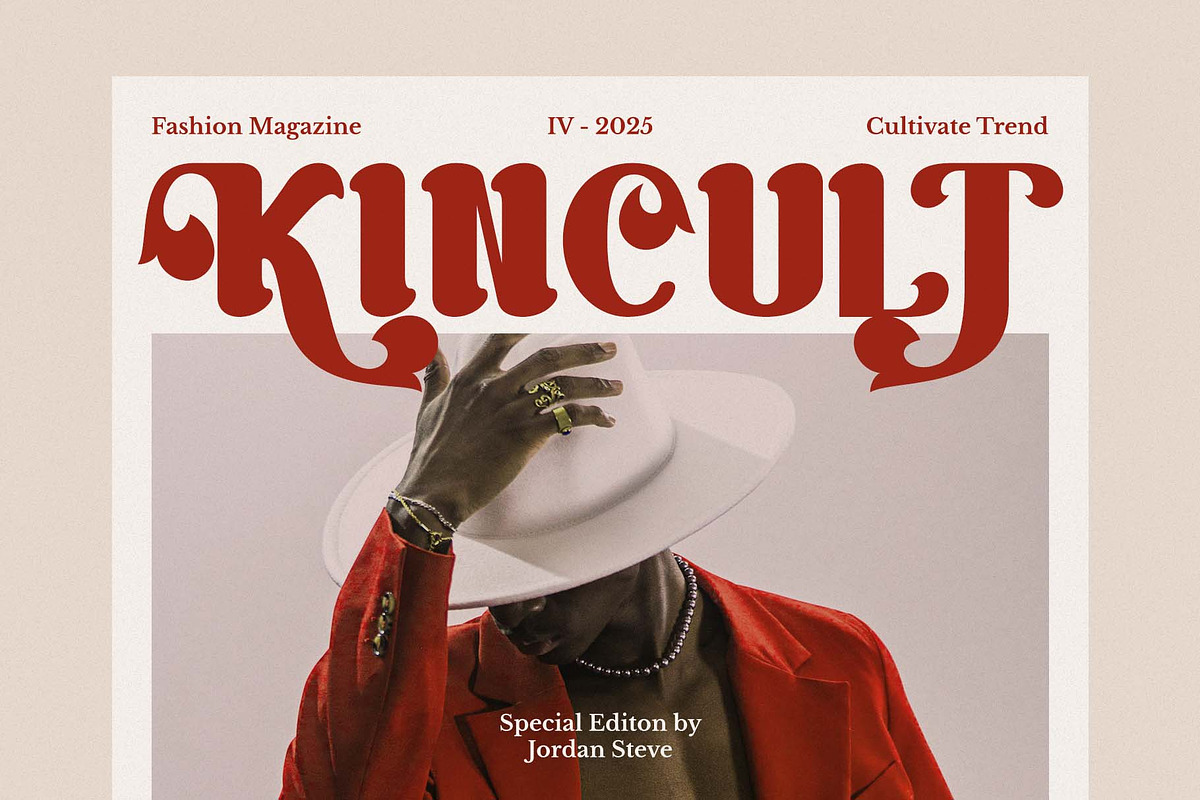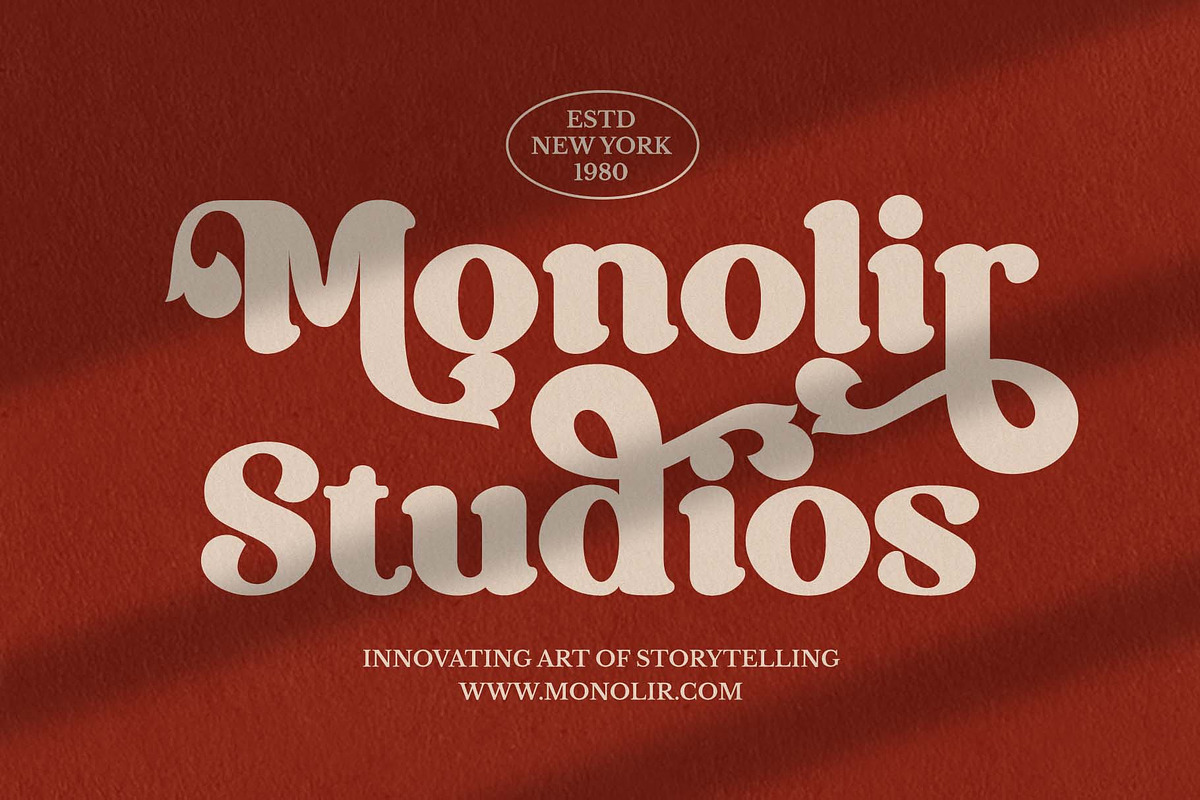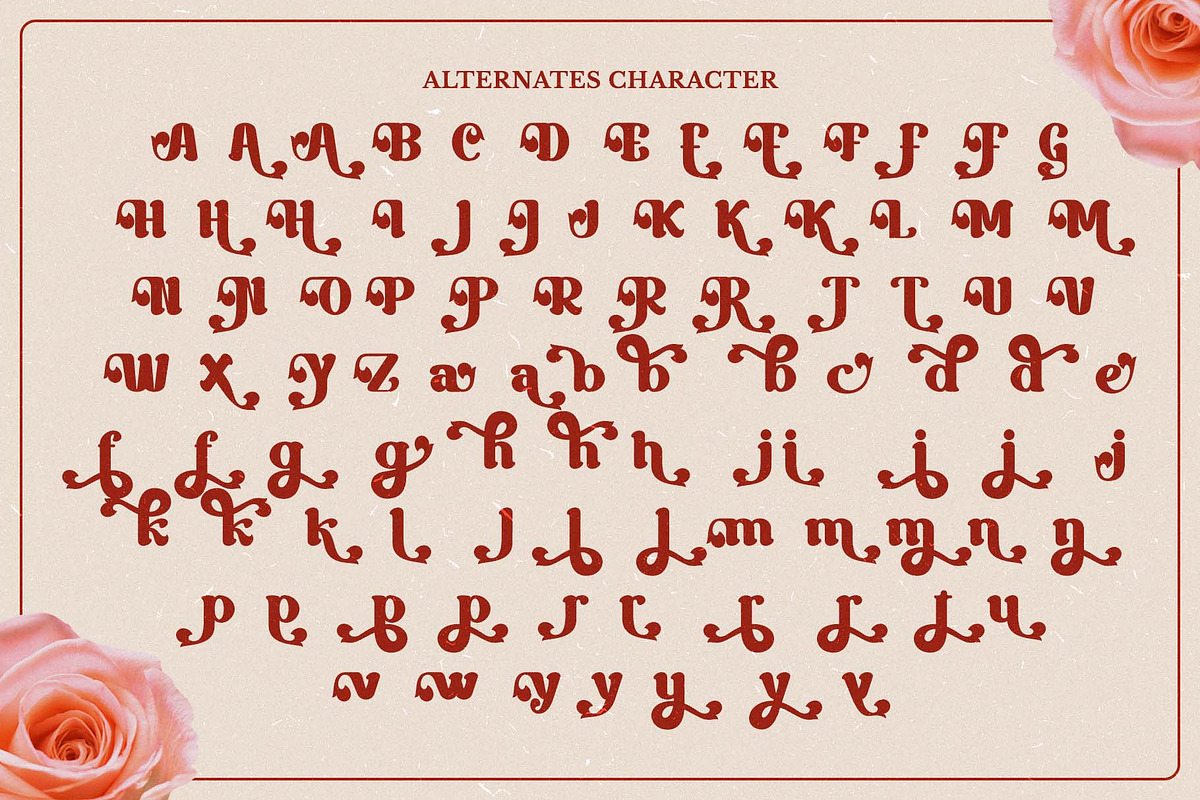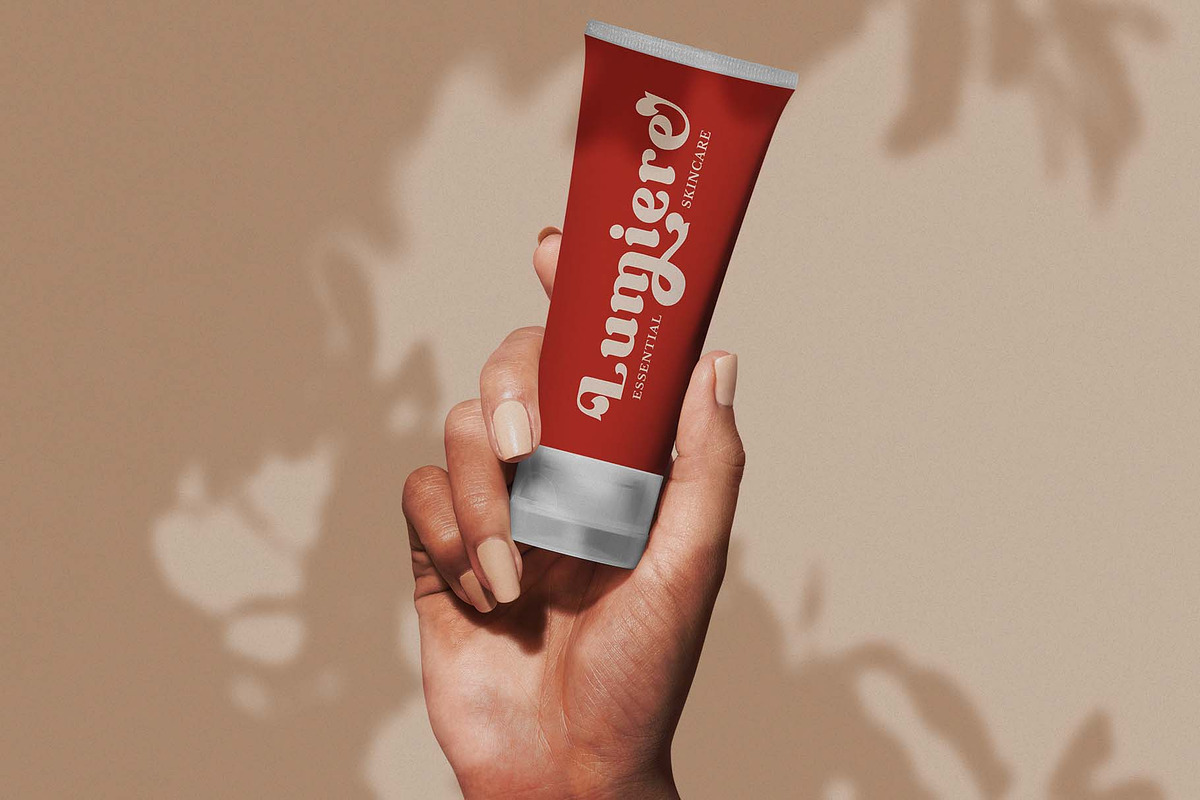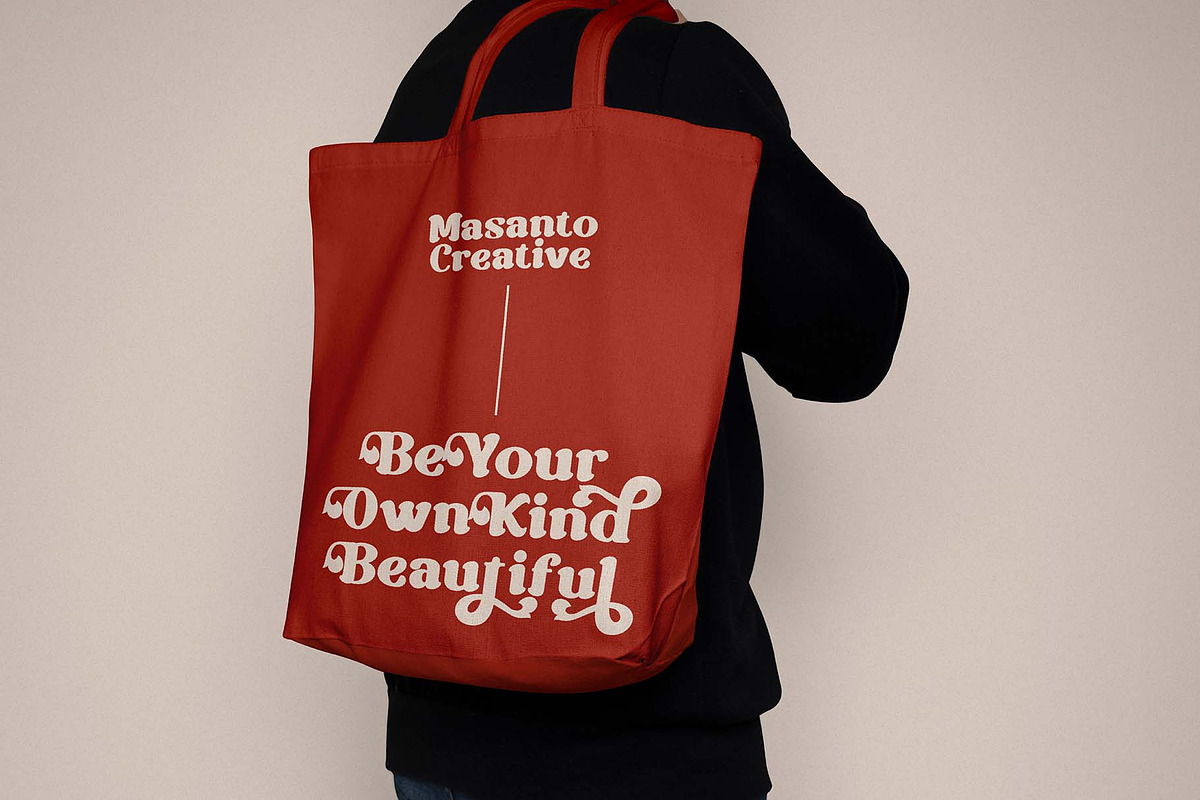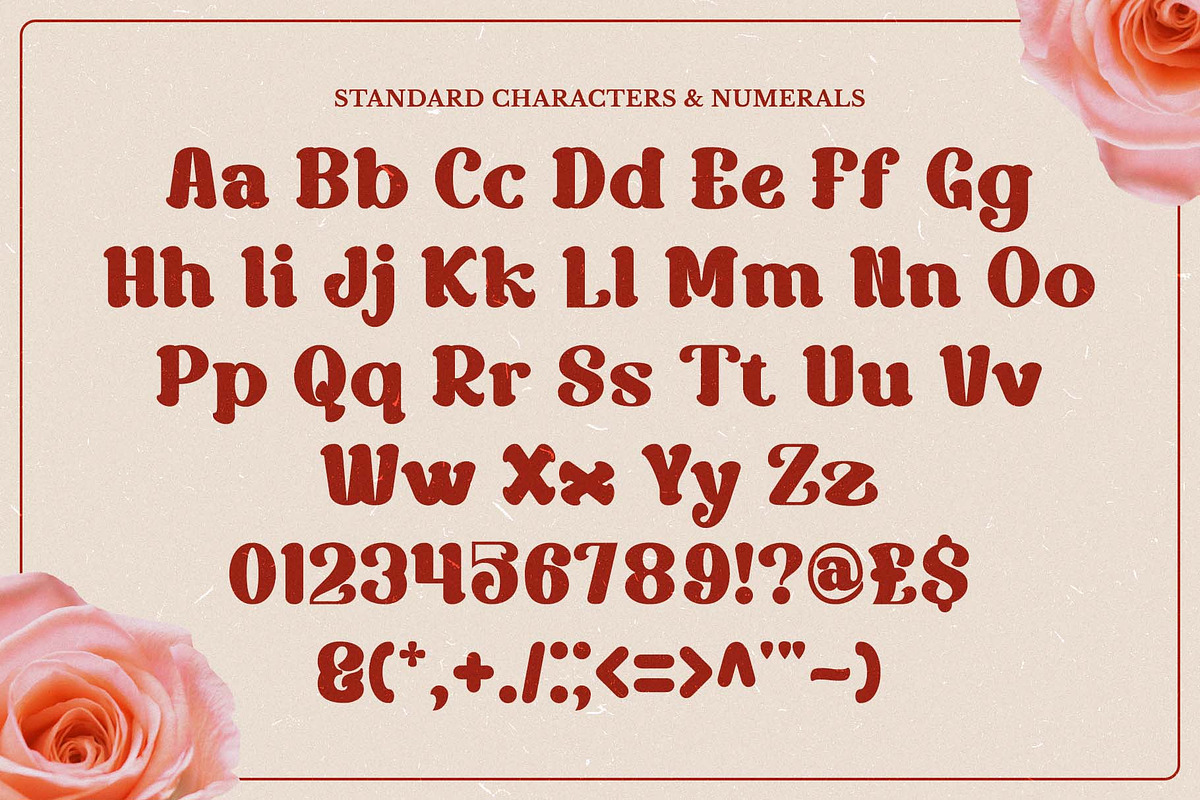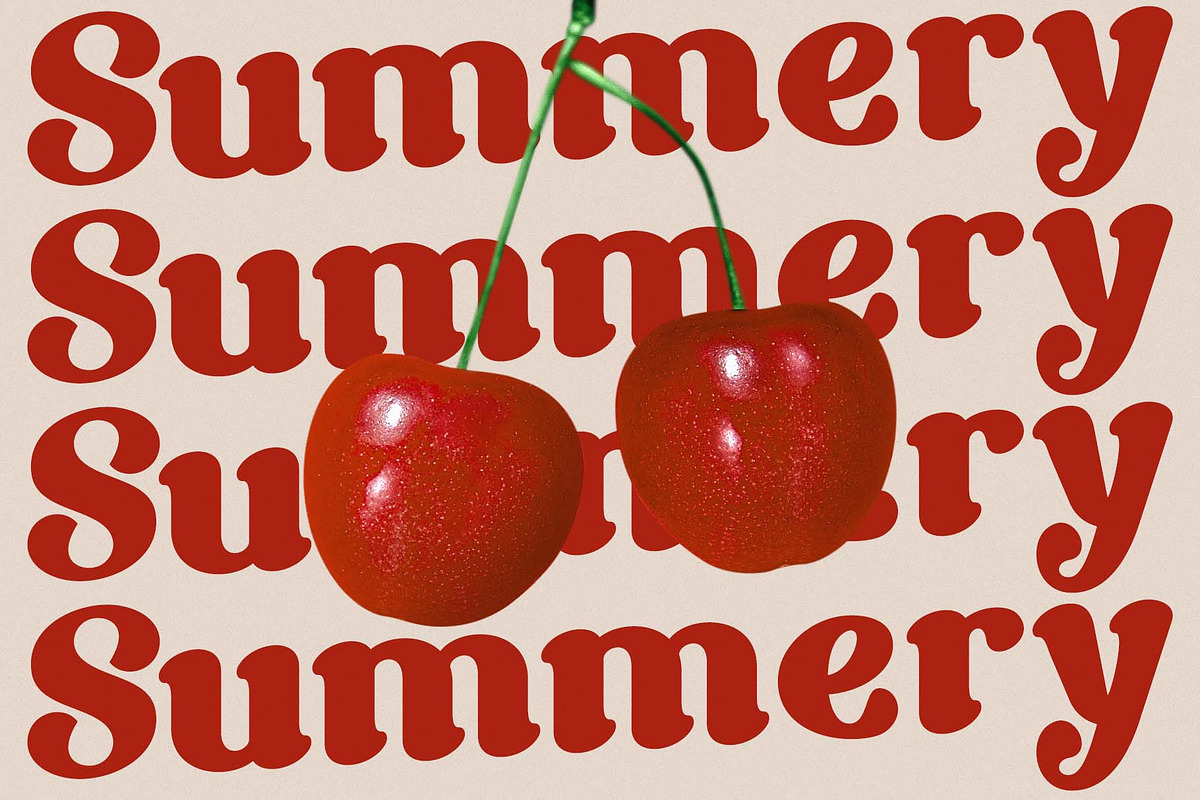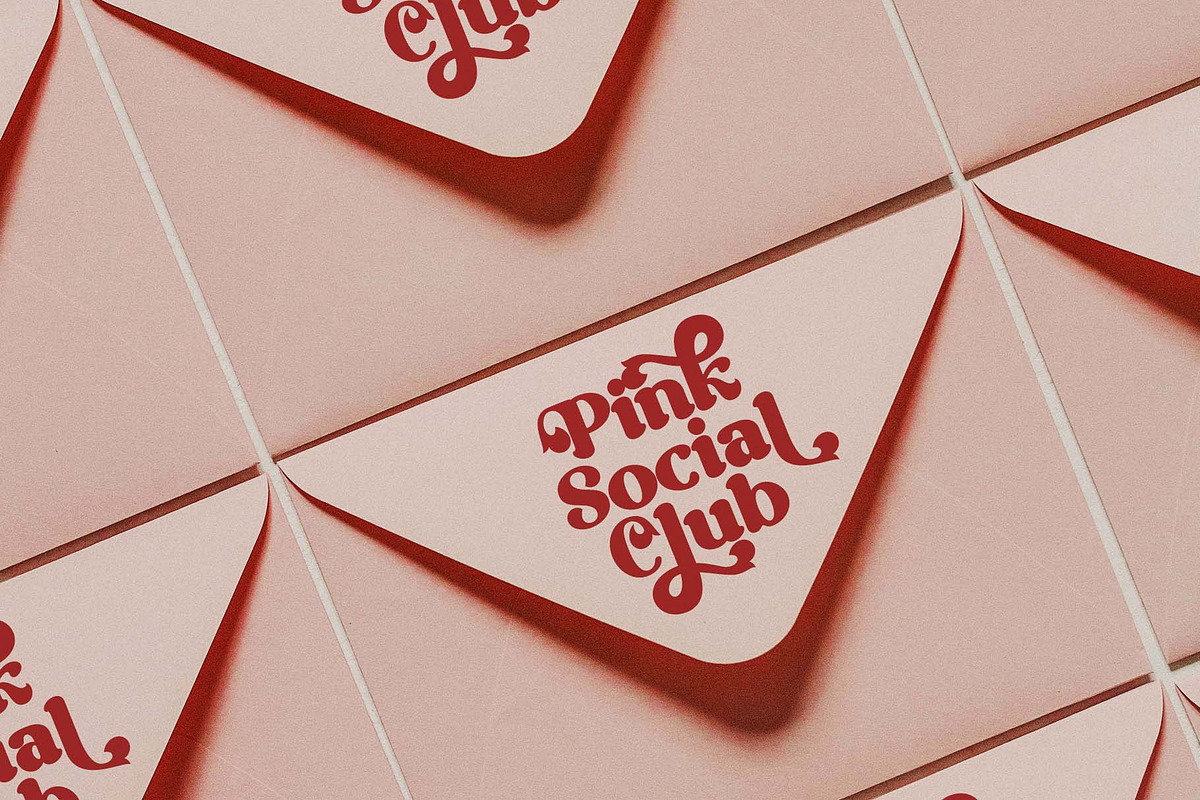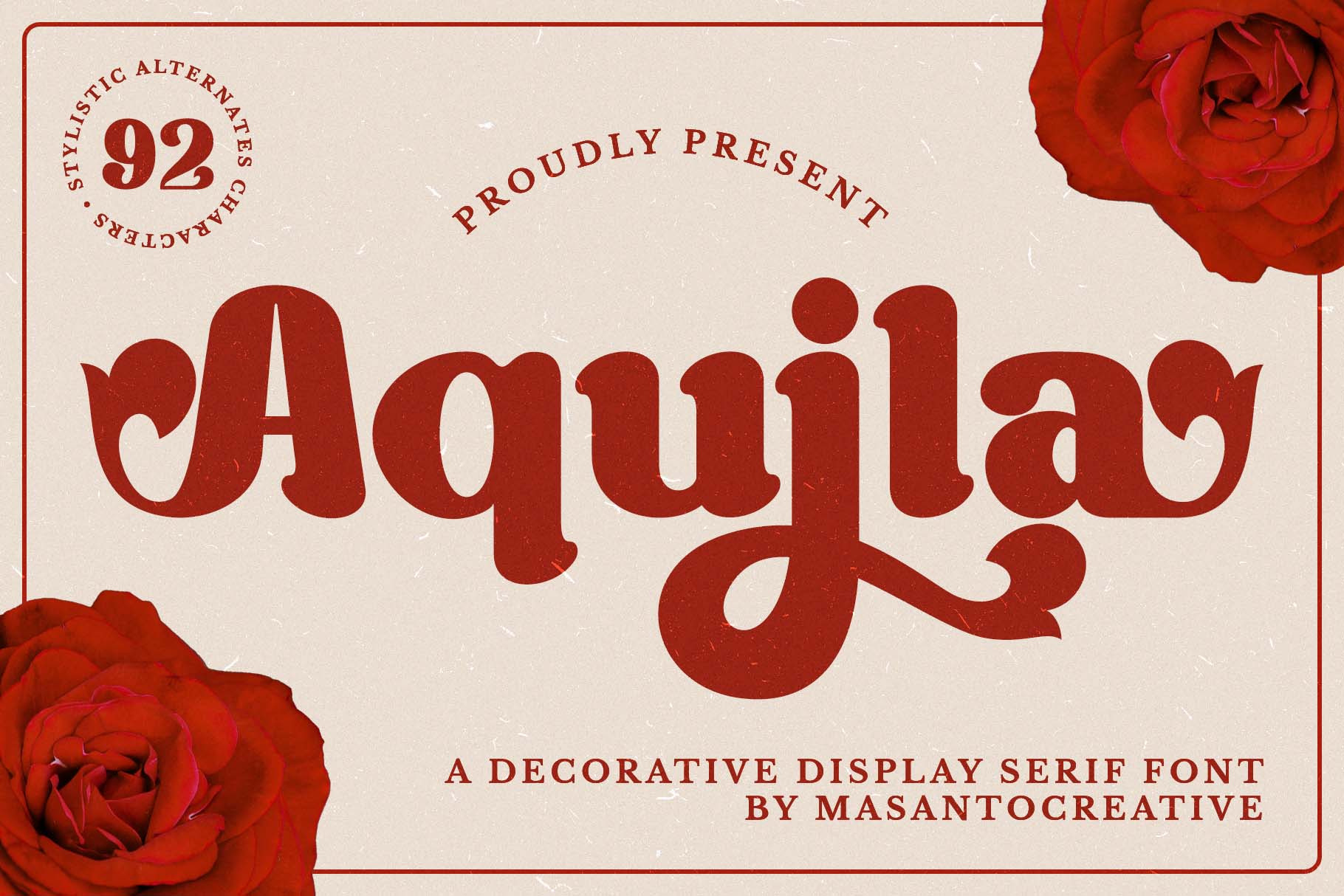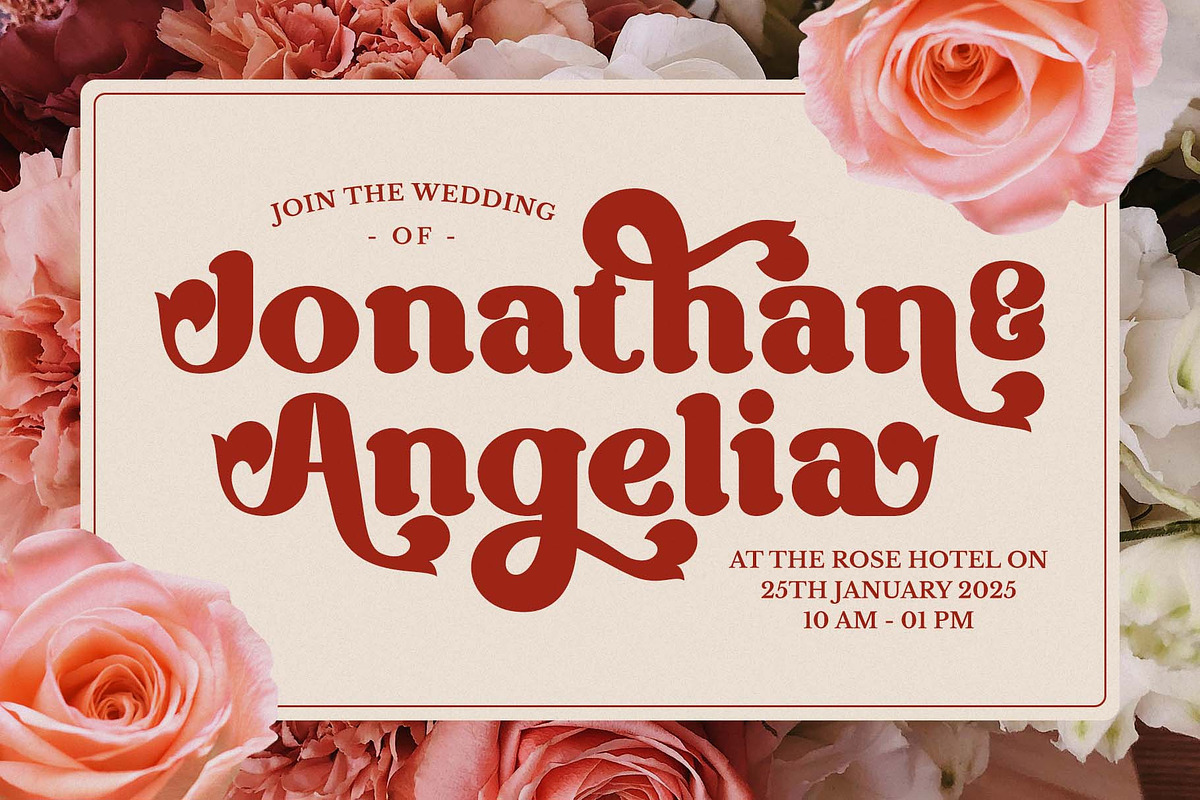
Aquila – Decorative Serif Font
ouch in their projects. With stylistic alternates, this font offers versatility for unique and eye-catching typography. Perfect for logos, posters, and branding, Aquila combines vintage elegance with modern appeal, making it an ideal choice for designers aiming to stand out.
- Ligature & Stylistic alternate